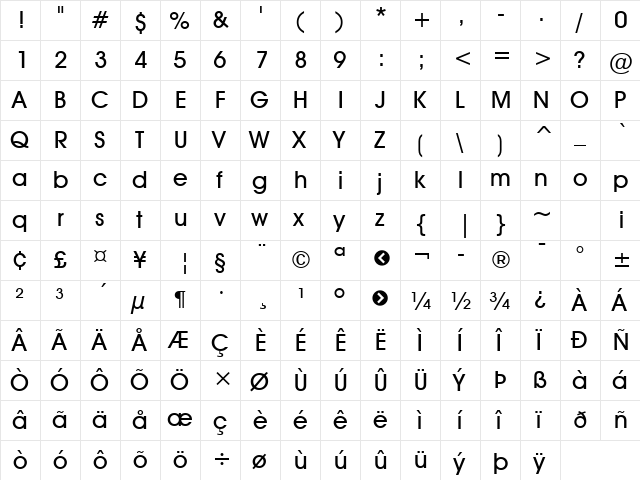
Decker Bold
Design Context for Decker Typeface
Decker is a composed and adaptable typeface that performs quietly and consistently across a wide range of design contexts. Its bold stroke weight gives it real presence on the page.